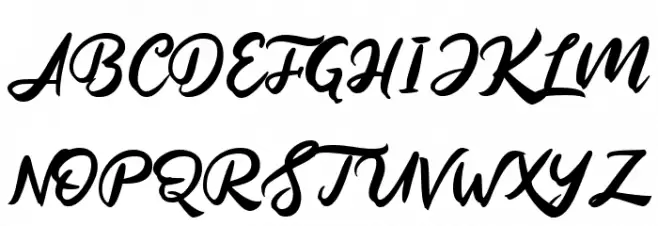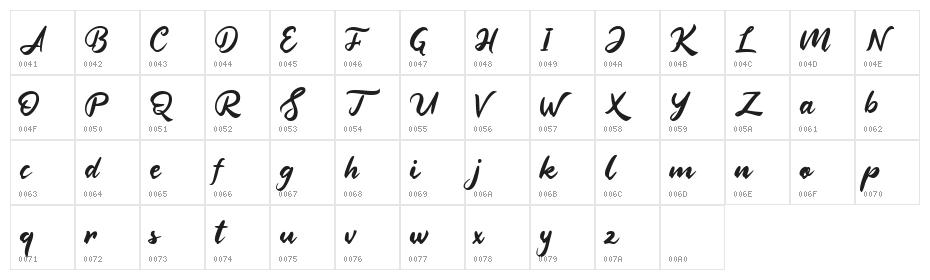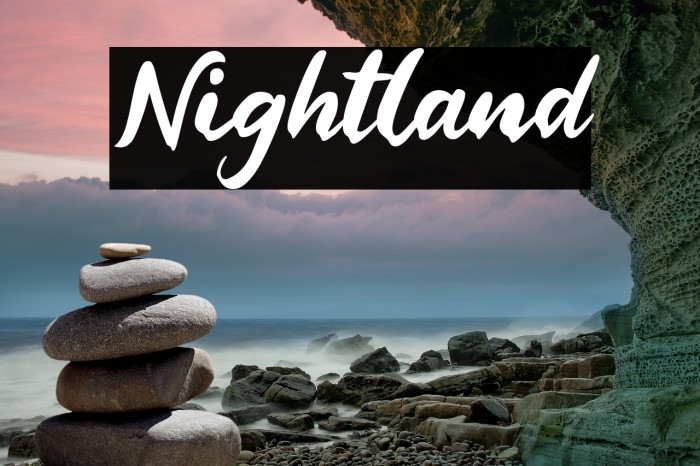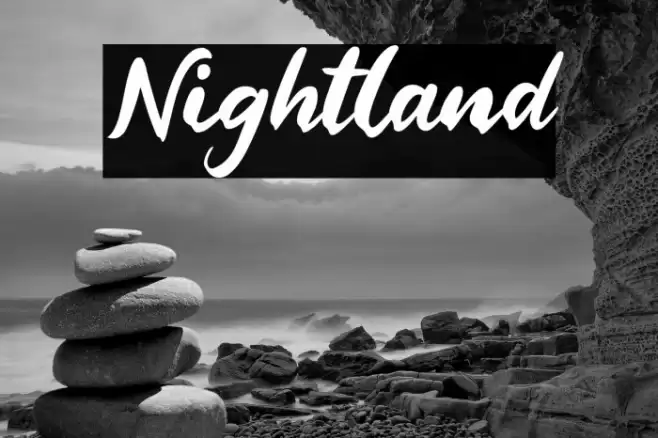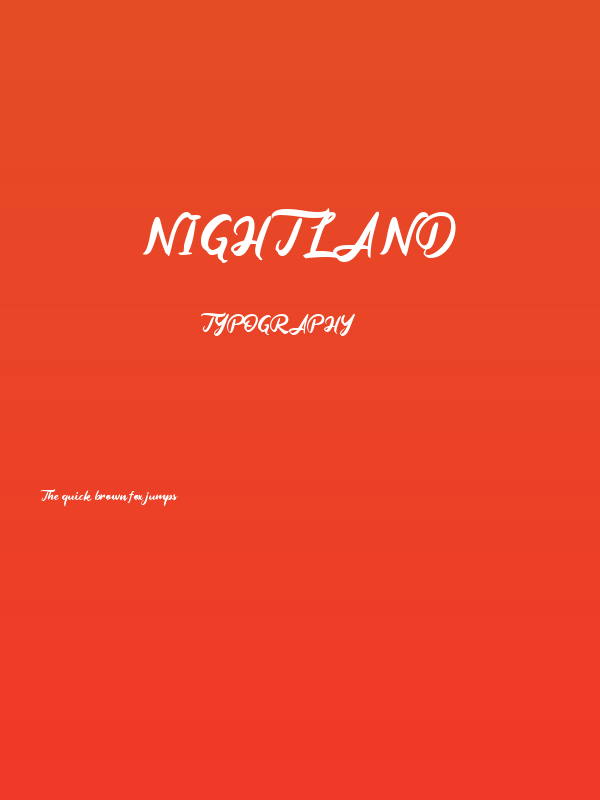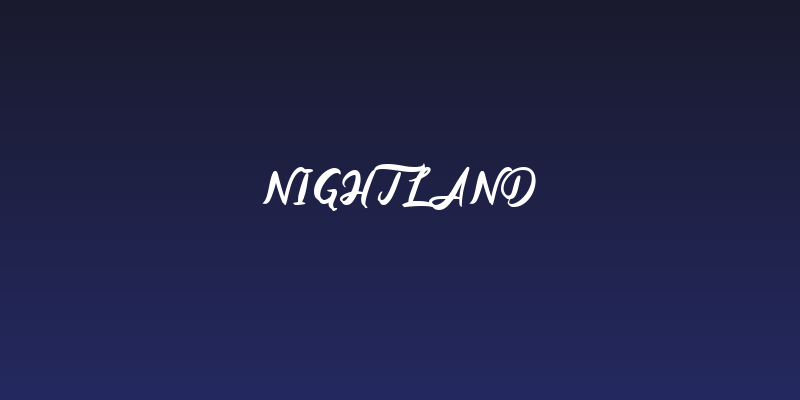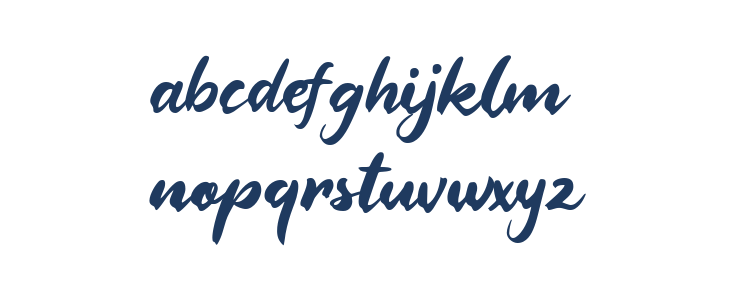
Nightland Font
Nightland Description
This font features a bold and expressive script style, characterized by its fluid and dynamic strokes. The letters are interconnected, giving it a handwritten appearance that is both elegant and energetic. The uppercase letters are slightly more elaborate, with sweeping curves and flourishes that add a touch of sophistication. The lowercase letters maintain a consistent flow, enhancing readability while retaining the artistic flair. The overall design is modern yet timeless, making it suitable for a variety of creative applications.
| Proposed Projects | Ideal for branding, invitations, greeting cards, and artistic projects requiring a personal touch. |